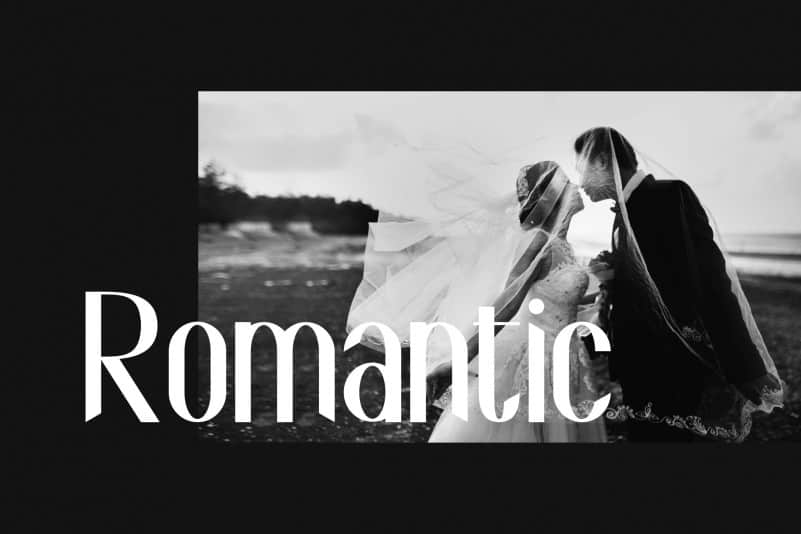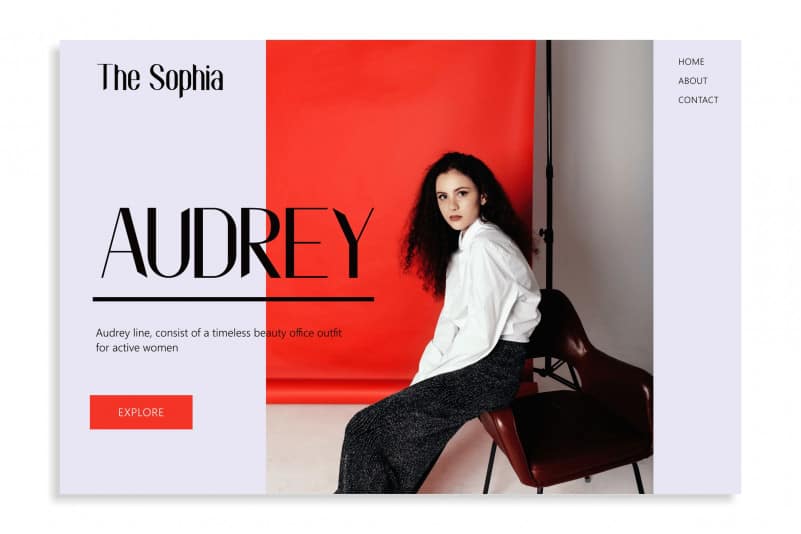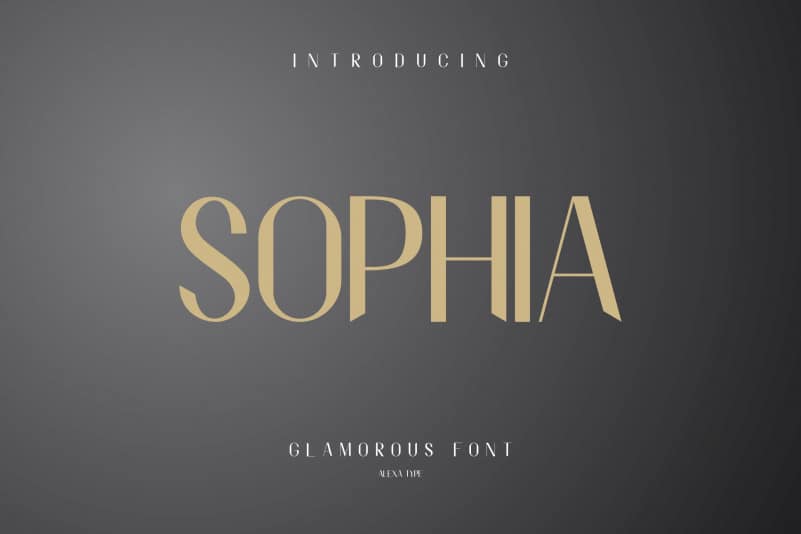
Shopia Sans Font
Introducing Shopia Sans Font. It’s a vintage All-Caps Sans-Serif typeface inspired by old handprainted building signage and lettering. Its humanistic features and moderate contrast between thick and thin strokes make it also suitable for long block of texts while having a high degree of legibility. With modern and sophisticated vibe, the clean and sharp Shopia Sans Font will bring your glamour side of your brand toward your loyal customer. Perfect for fashion magazine, website, glamour and high end product.